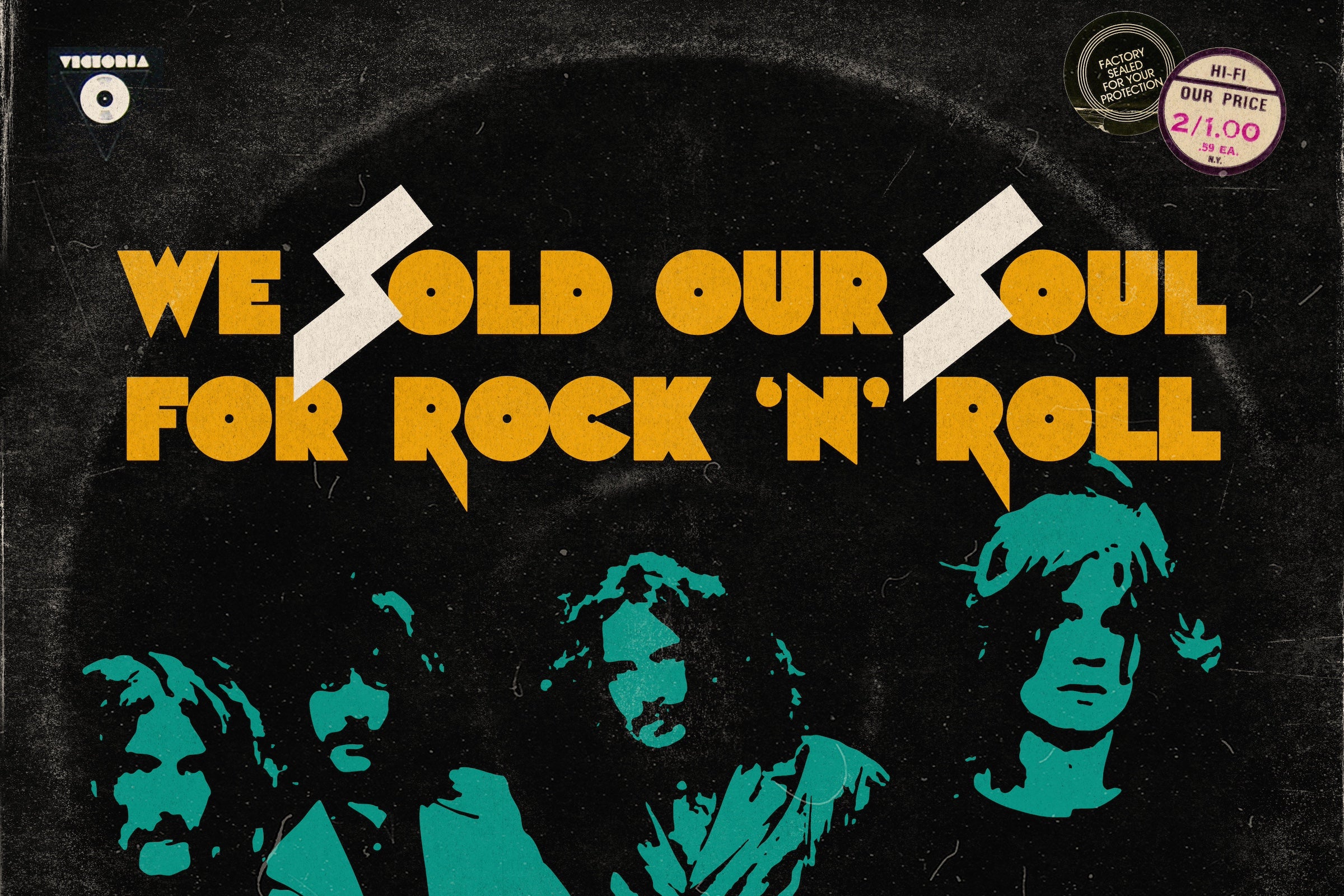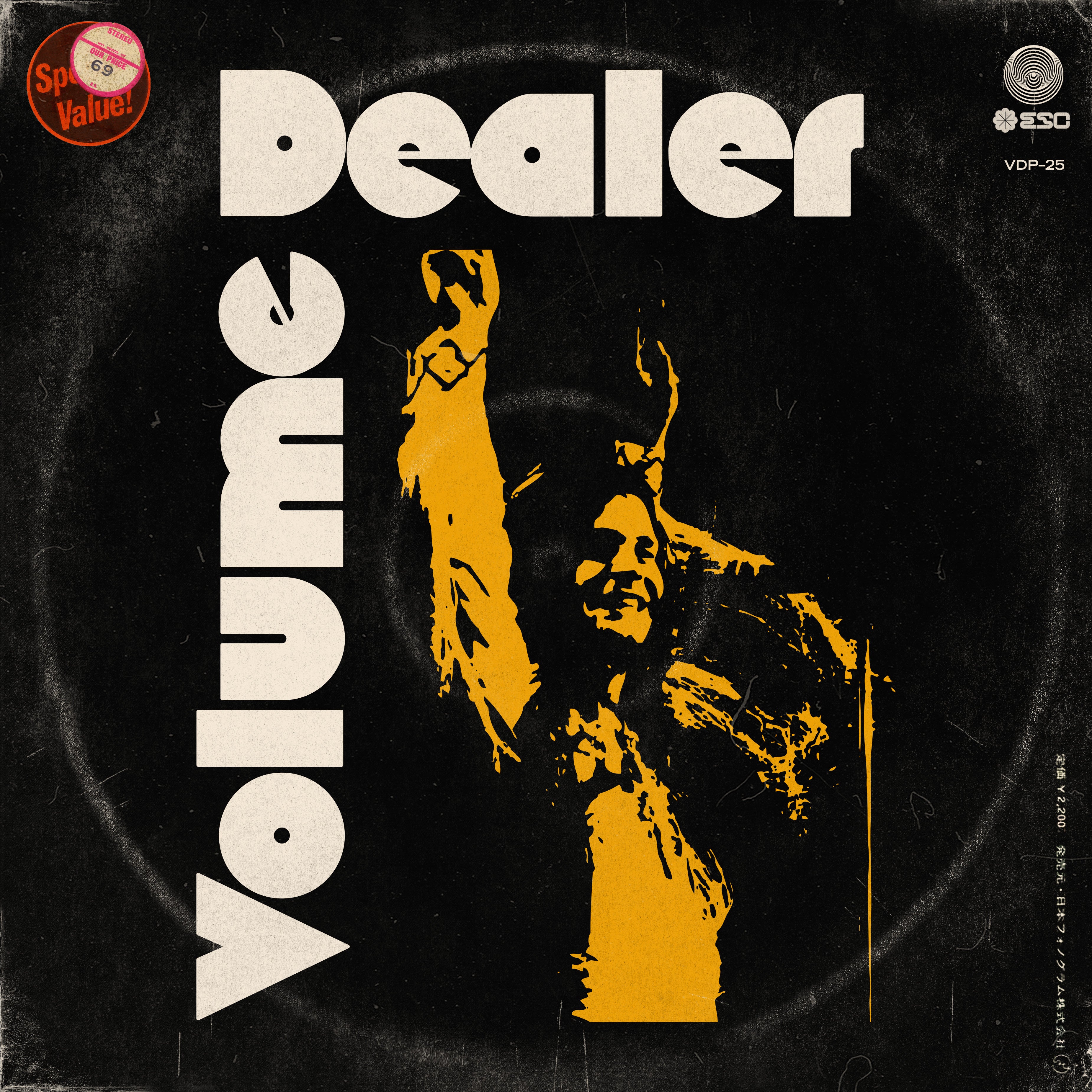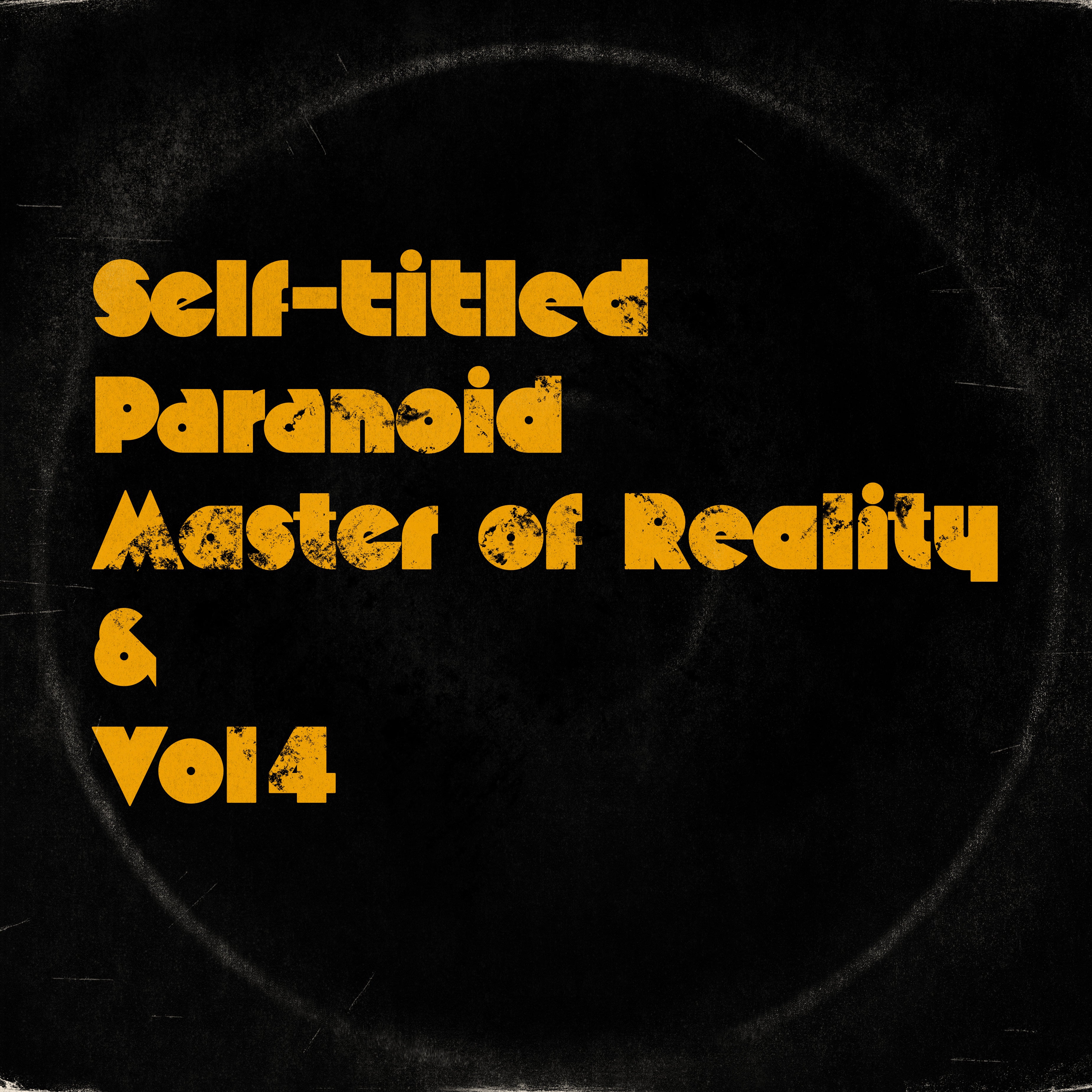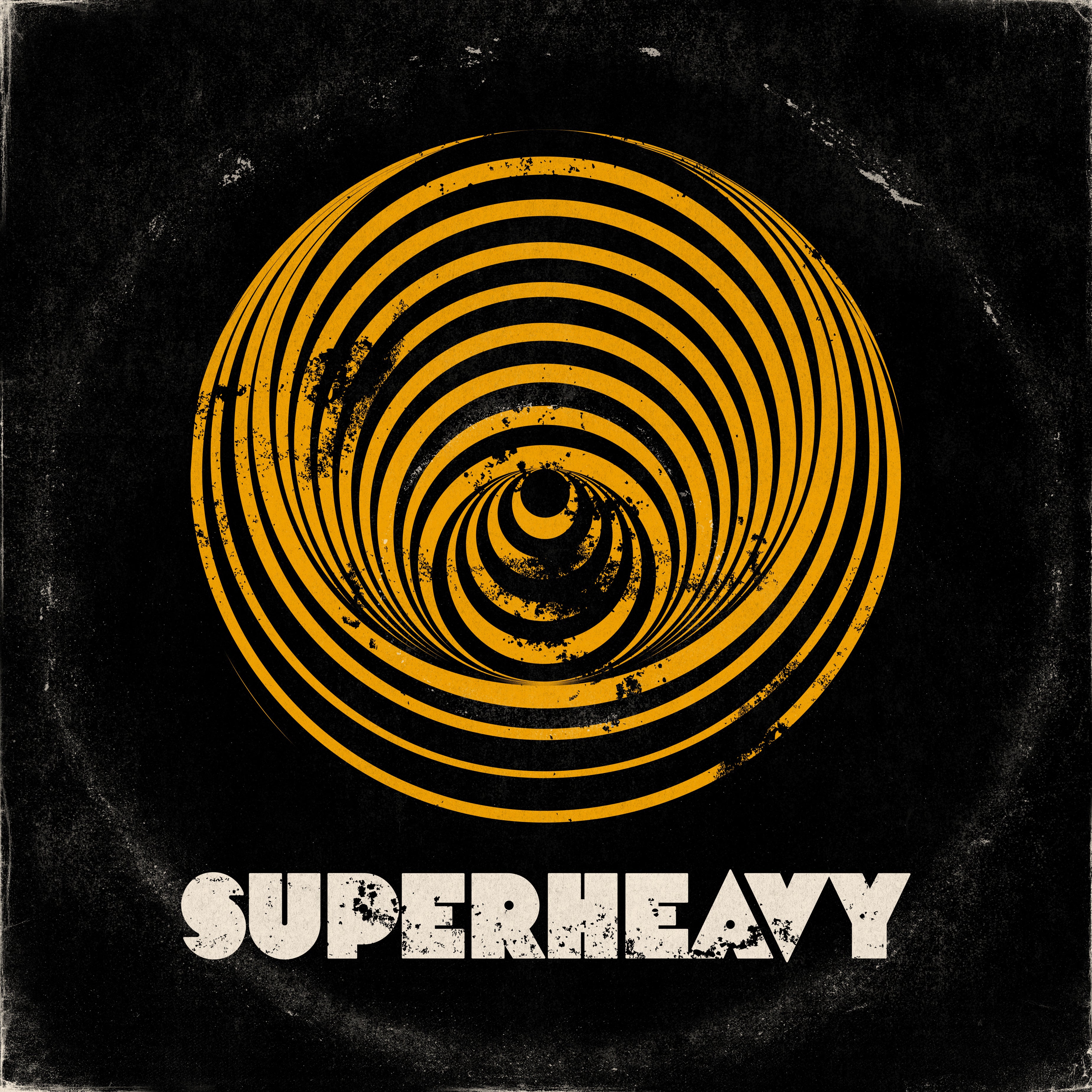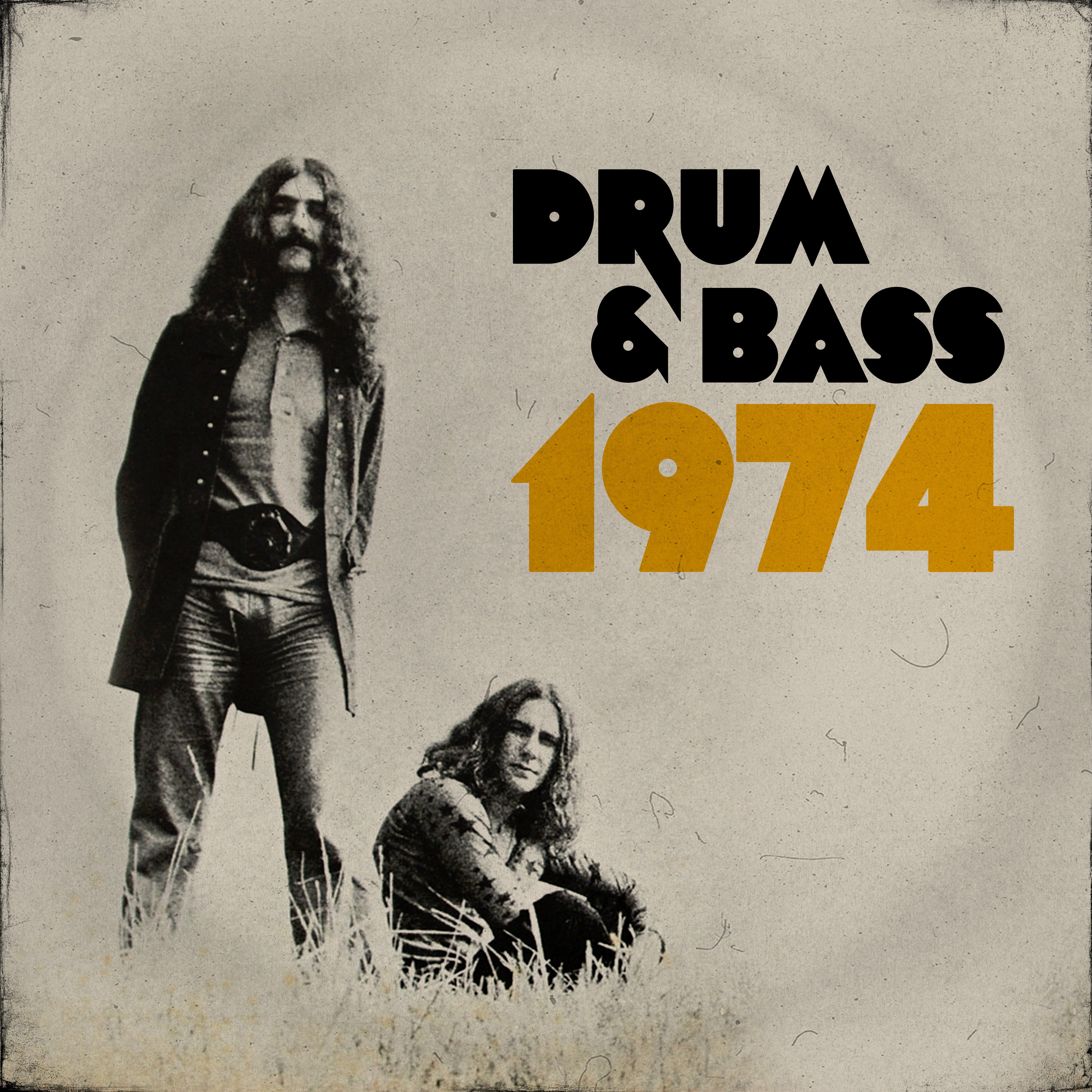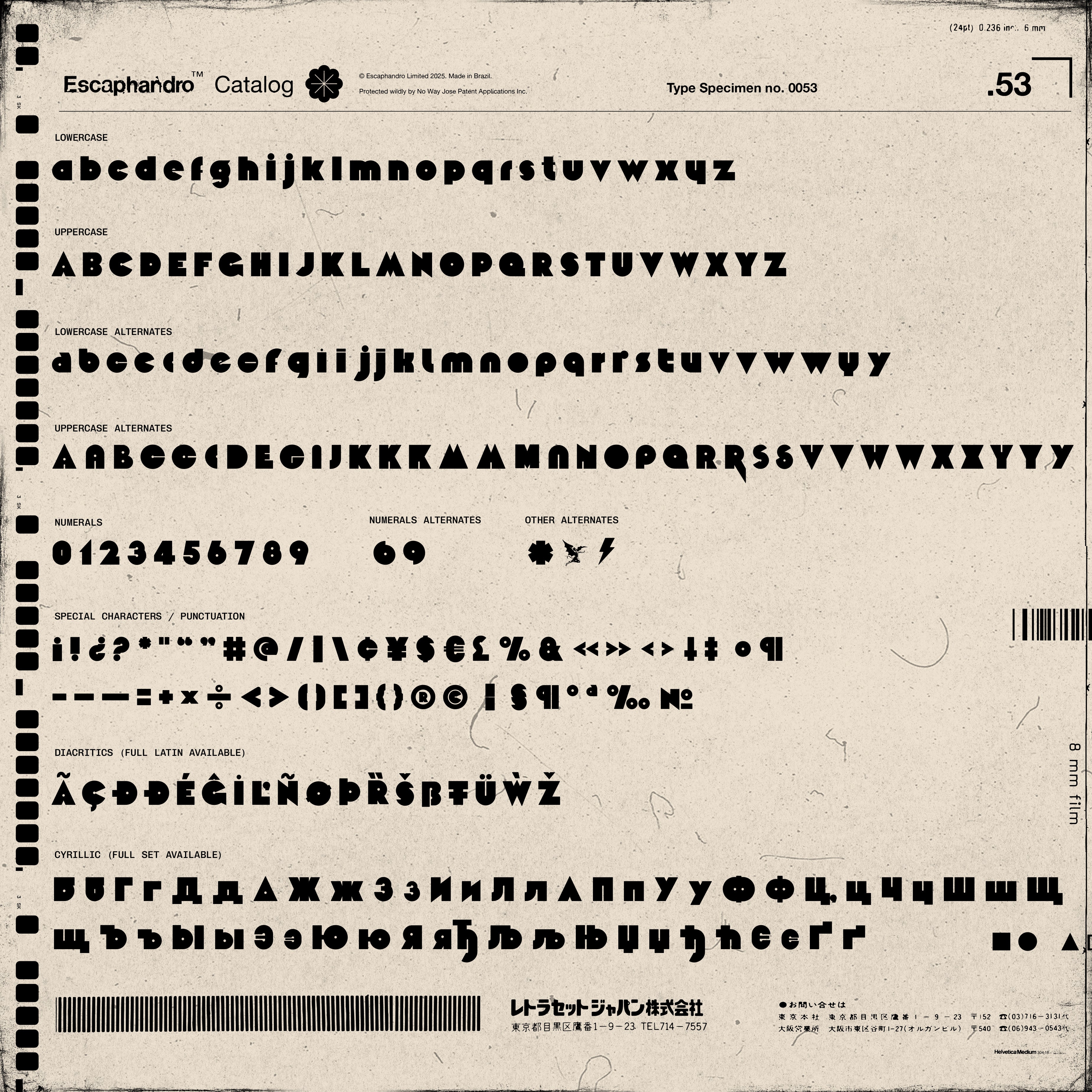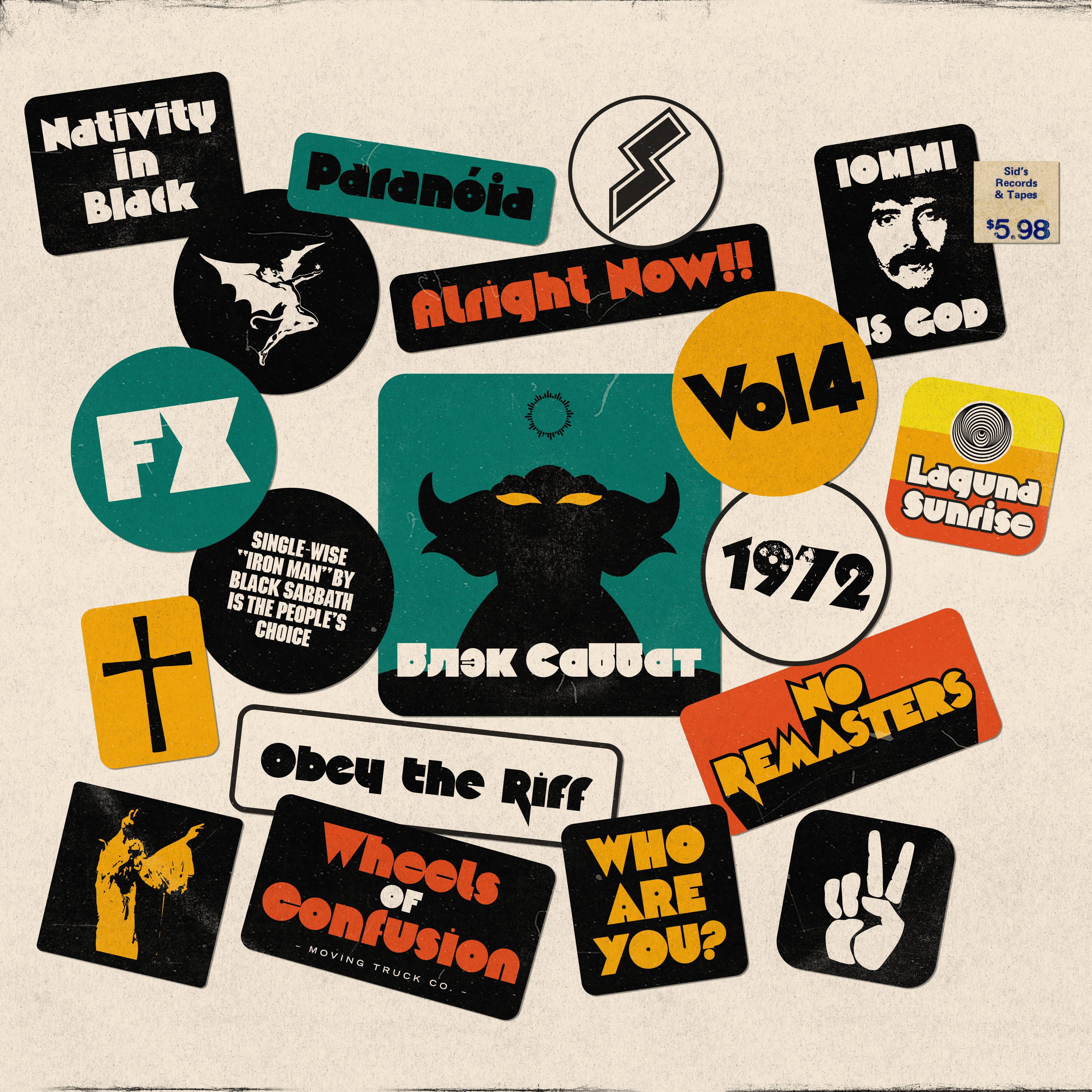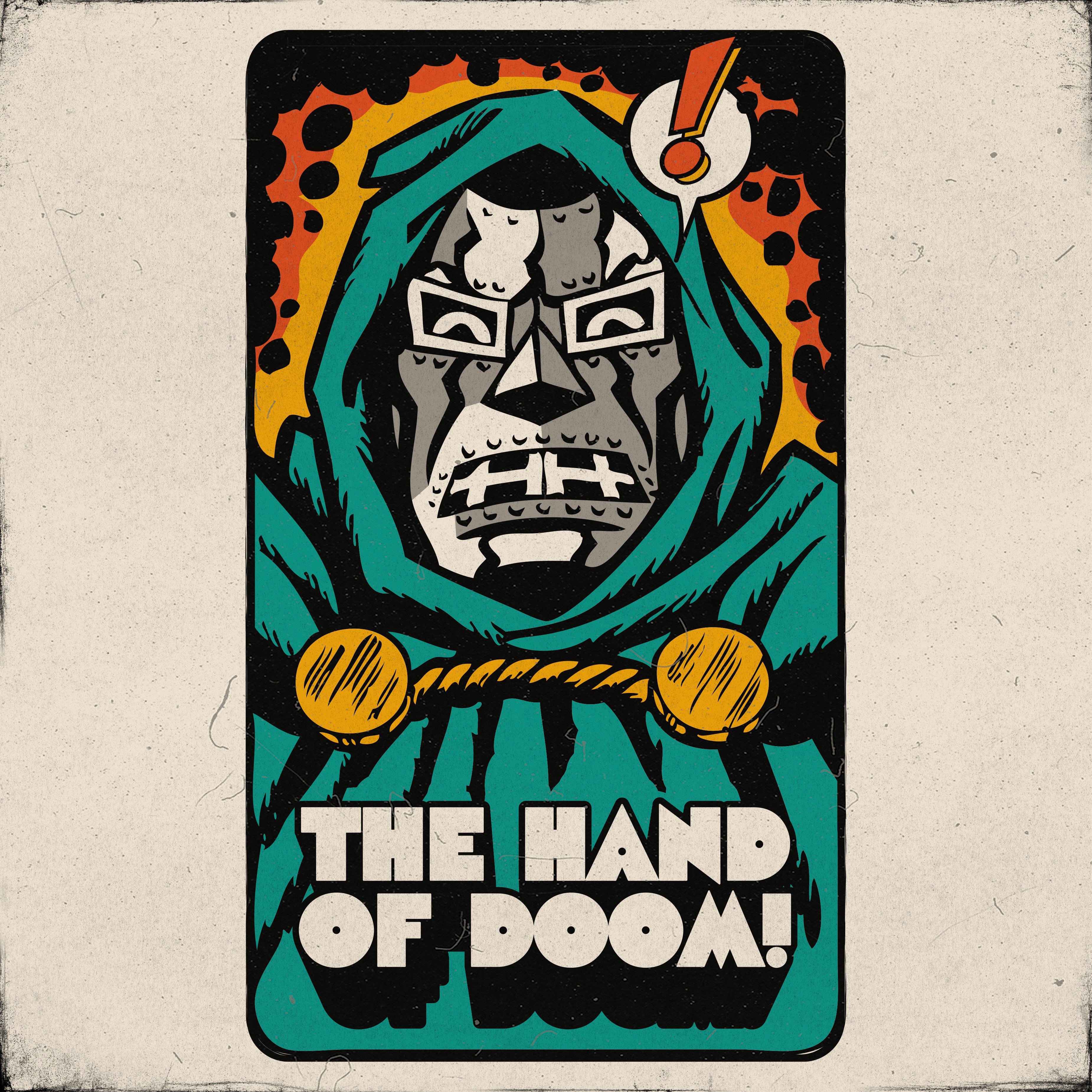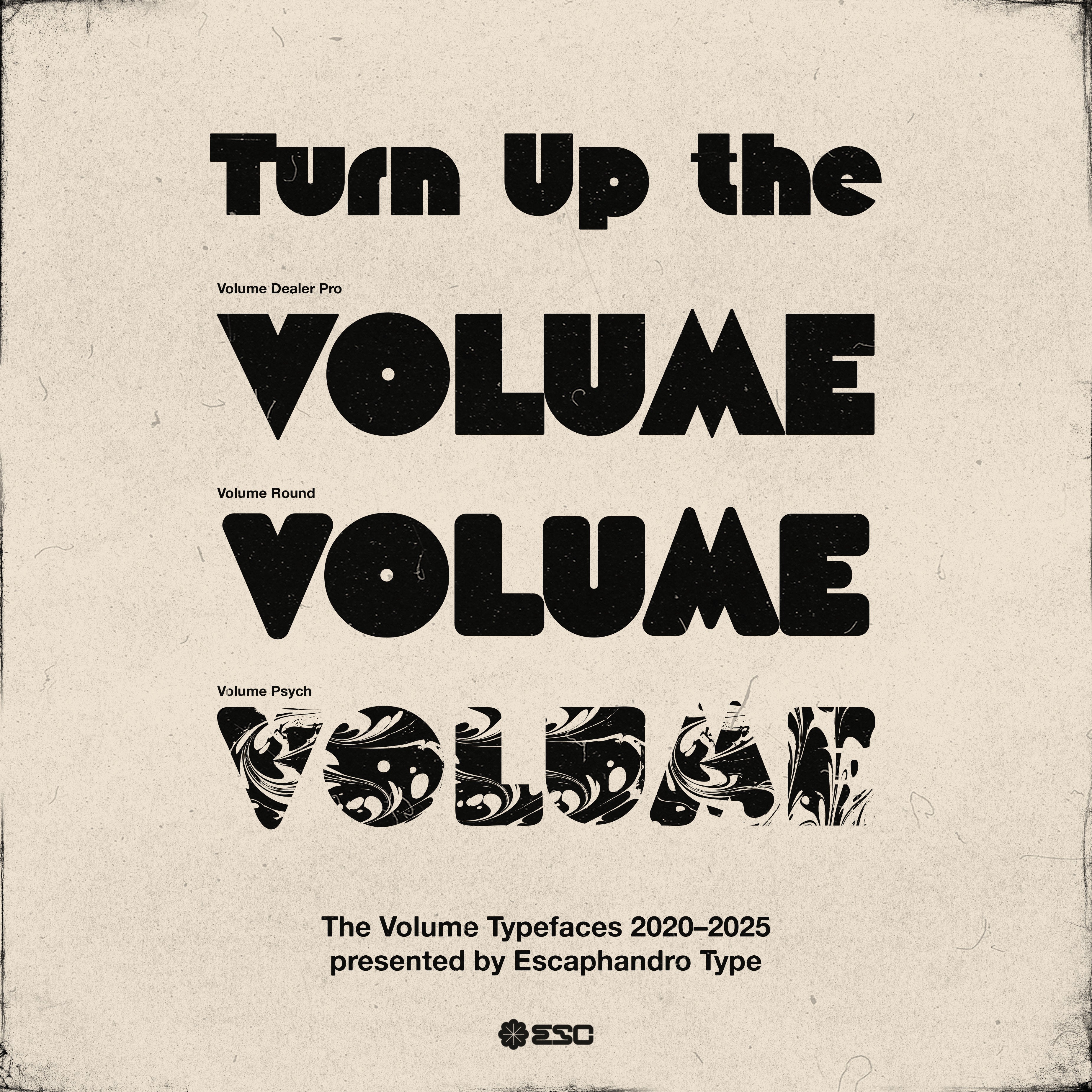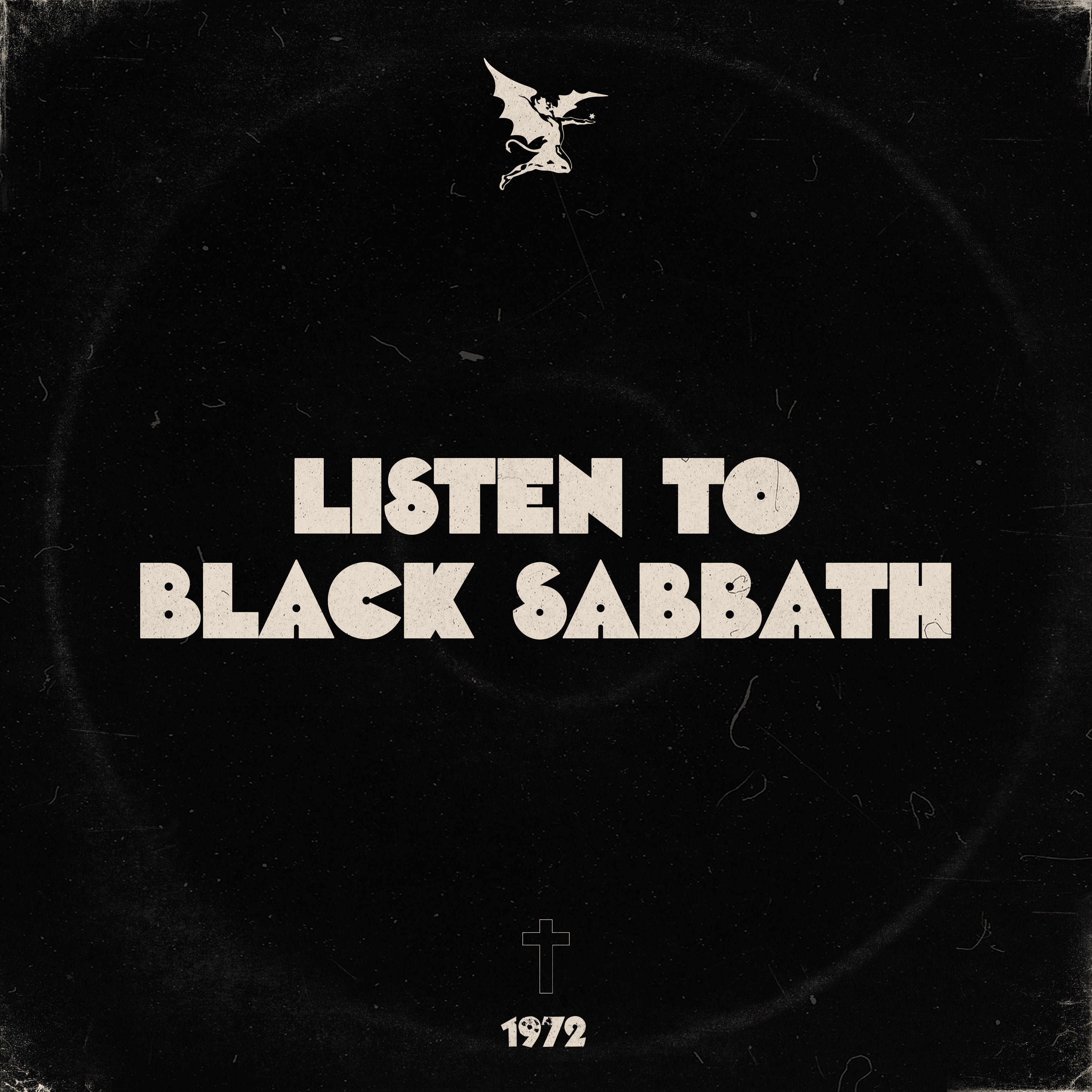
Volume Dealer Pro was created by Rafael Nascimento.
The Volume Dealer journey started about 10 years ago, as an investigation and type design exercise based around the longtime classic "Black Sabbath Vol. 4" album cover lettering. Trying to design an accurate yet literal revival was a bittersweet process, so many inconsistencies appeared from getting a complete digital set together as a proper font.
That frustration led to a new approach: starting from scratch based on a larger array of references from the same era – the glorious years of photo typesetting around the 1960s and 1970s. From that the first version of Volume Dealer was released in 2020 – one of my first commercial fonts.
As time went by, I have expanded the Volume concept into rounded and psychedelic display versions, bringing more of the vintage inspiration as well as a more comprehensive character set. The work of Peter Steiner (Black Body and Black Pepper typefaces) and the Ginger Snap typeface were key influences in that transition to a more authentic look.
That made me look back to the first version of Volume Dealer for a lot of refinements. Back then (2018/2020) I didn't know the Sabbath lettering was actually based on a obscure typeface from that era named Gadget, a revelation that brought light to a long research, now registered through the work of @Fontastique and recently by a very comprehensive post on Fonts In Use. Well, Gadget didn't look so good as I suspected, which reinforced my original approach – I didn't want a facsimile of revival, specially with new fonts popping up with the same references.
In the wake of Ozzy Osbourne's passing last month, I reviewed and refined this project once again, looking to improve the character set and bring a few extra touches to release Volume Dealer Pro – the definitive version and tribute to some of my all-time favorite artists.
This release brings refined vectors and metrics, a whole new set of alternate characters in line with Volume Rounded and a gift in the form of easter eggs characters and a set of Black Sabbath Dingbats.
A typeface meant for large and maybe music-inspired graphics and titles. Crank up the Volume!